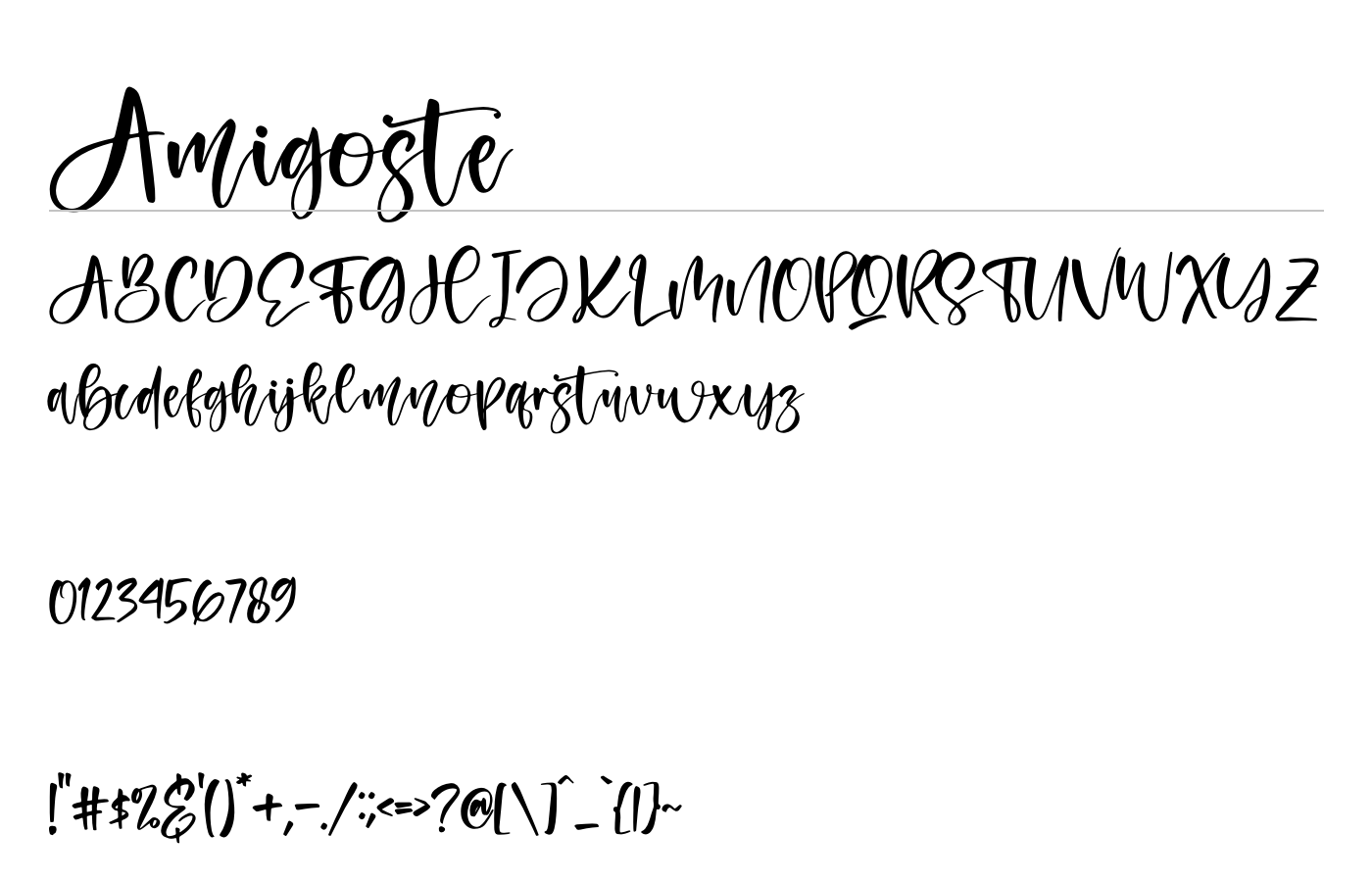
Amigoste is a lively script font with a hand-lettered feel, featuring fluid strokes and playful loops that give it a warm, friendly personality. Its moderate contrast and elegant curves make it perfect for creative projects, invitations, and branding that seeks a personal, approachable touch. This font shines in designs where a casual yet stylish appearance is desired, adding charm and character to headlines and decorative text.
Amigoste Font
About Amigoste Font